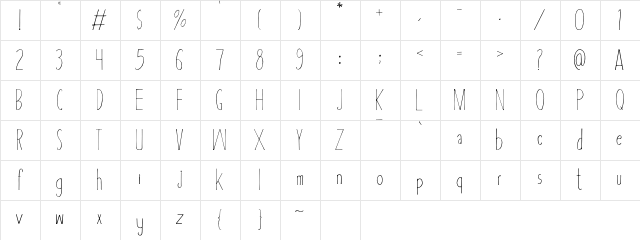
Asbah Regular
Designer: Ahsan
Design Context for Asbah
Asbah is a composed and adaptable typeface that performs quietly and consistently across a wide range of design contexts.